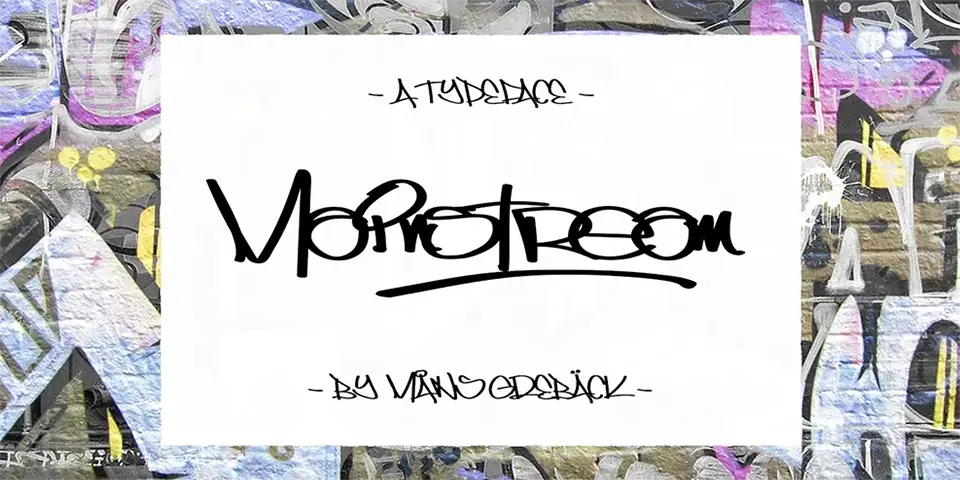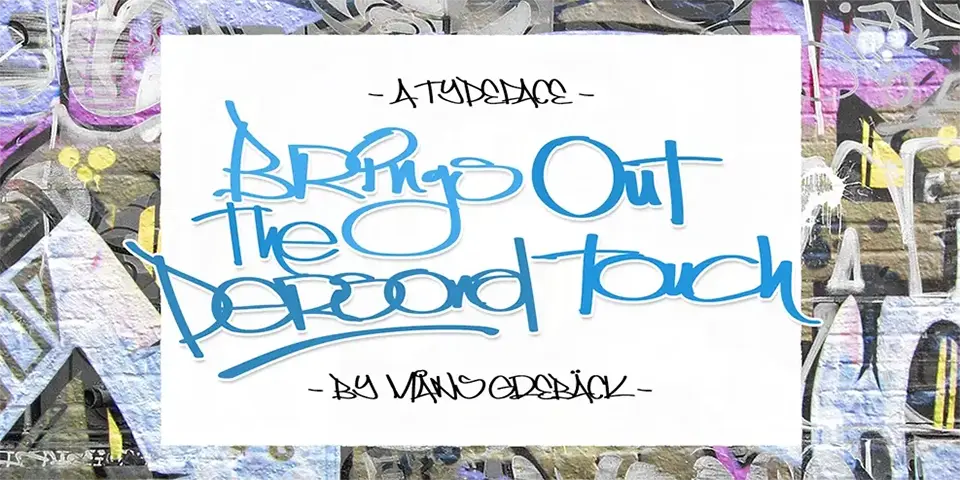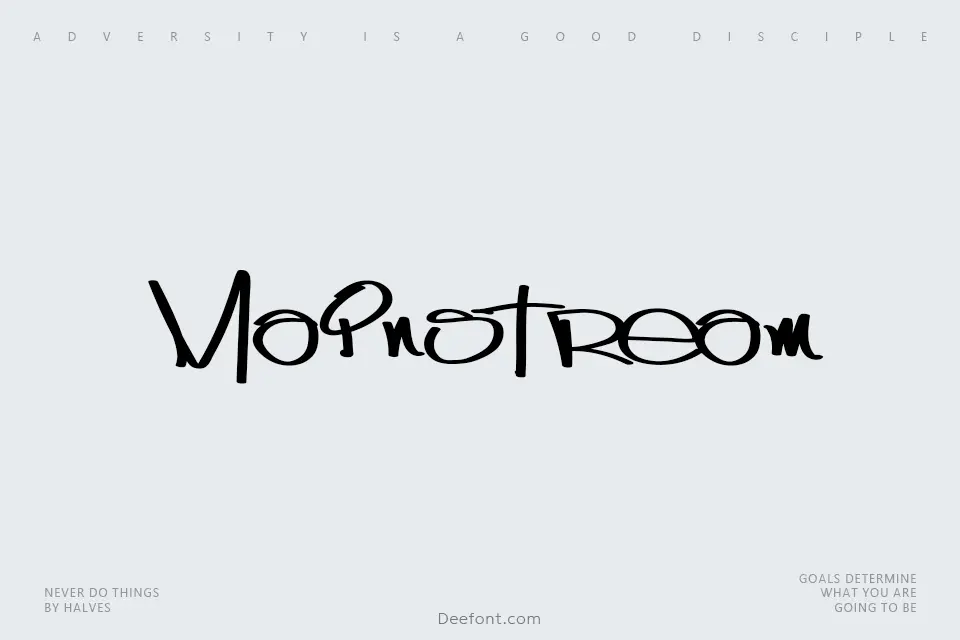
Mainstream Font
Mainstream is a dynamic graffiti-inspired script font designed by Måns Grebäck that brings raw, expressive energy to creative projects. Featuring bold, distinctive letterforms with an intriguing blend of organic curves and angular strokes, this typeface exudes the spontaneity and rebellious spirit of urban street art. Ideal for headlines, logos, branding, and editorial layouts, Mainstream offers versatility for projects seeking youthful energy and edgy aesthetics.